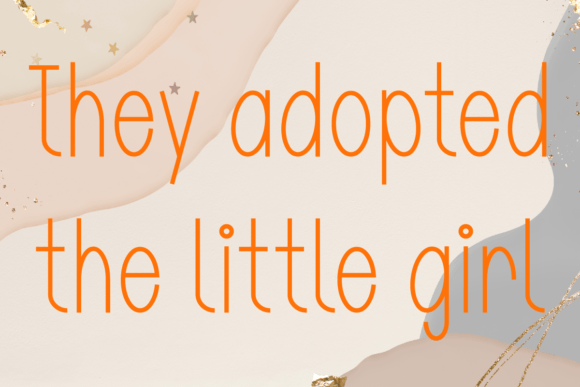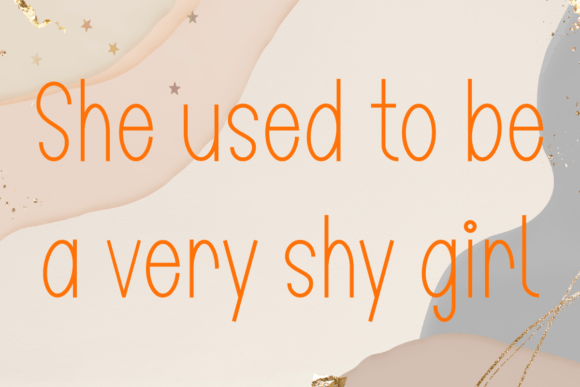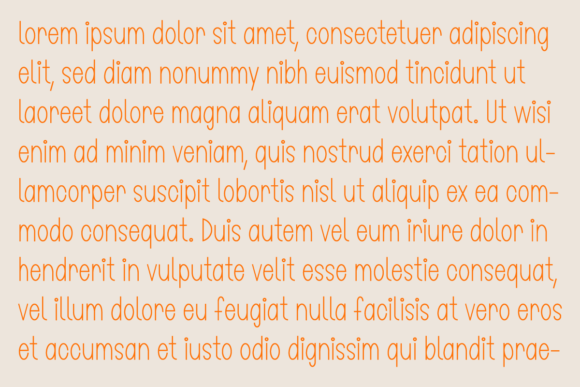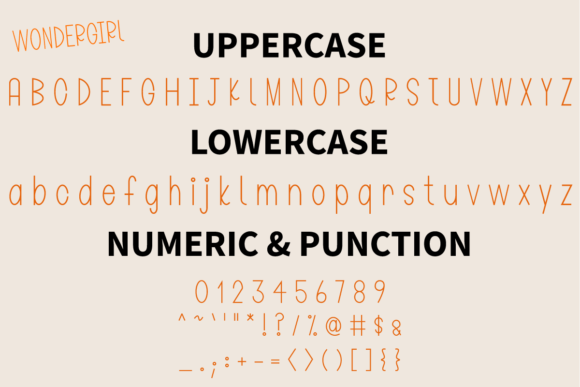
Wondergirl Font
About Wondergirl Handwritten Font
Wondergirl Handwritten Font is a simple, friendly, and playful typeface designed to bring charm and creativity to your projects. With whimsical curves, quirky strokes, and balanced proportions, it captures the joy of handwriting while remaining clear and professional. Because of its versatility, Wondergirl Handwritten Font works beautifully for invitations, posters, logos, quotes, packaging, magazines, and digital content.
A Playful Typeface with Friendly Charm
Handwritten fonts often carry warmth and originality, and Wondergirl Handwritten Font delivers exactly that. Its letters are whimsical but balanced, giving your designs a unique personality. In addition, its carefully crafted form ensures excellent readability, making it suitable for both casual and professional projects.
Special occasions deserve fonts that feel personal and fun, and Wondergirl Handwritten Font is a perfect fit. For example, it can elevate wedding invitations, birthday cards, and thank-you notes with cheerful style. Moreover, it adds playfulness to seasonal greeting cards, festive stationery, and holiday menus, ensuring every design feels special.
A Script Typeface for Branding and Packaging
Designers and businesses can also take advantage of Wondergirl Handwritten Font in branding. It looks stunning on boutique logos, product labels, and advertising campaigns. Furthermore, it adapts seamlessly to magazine layouts, social media designs, and promotional materials. When paired with clean sans serif fonts, it creates a polished and modern identity that resonates with audiences.
Flexible Across Print and Digital Media
Another strength of Wondergirl Handwritten Font is its adaptability across mediums. In print, it enhances posters, brochures, and merchandise with a handcrafted touch. Digitally, it integrates smoothly into blogs, websites, and online stores. Since it scales perfectly from small icons to large headlines, it ensures clarity and consistency everywhere.